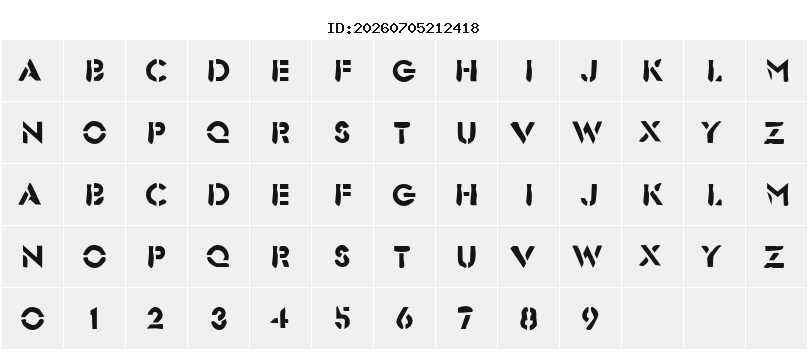
Dirty26 Preview
• Font Name: Dirty26
• Full Font Name: Dirty26-Bold
• Designer: SoftMaker Software GmbH
• Manufacturer: SoftMaker Software GmbH
About Dirty26.ttf
Dirty26.ttf is a modern, elegant sans-serif font designed for ultimate readability and visual harmony. Perfect for branding, headlines, web design, and print materials.